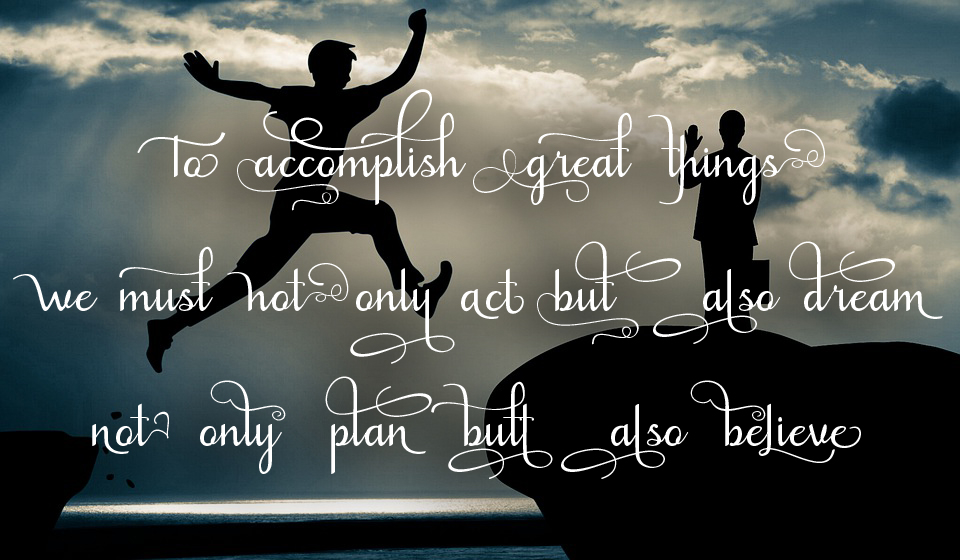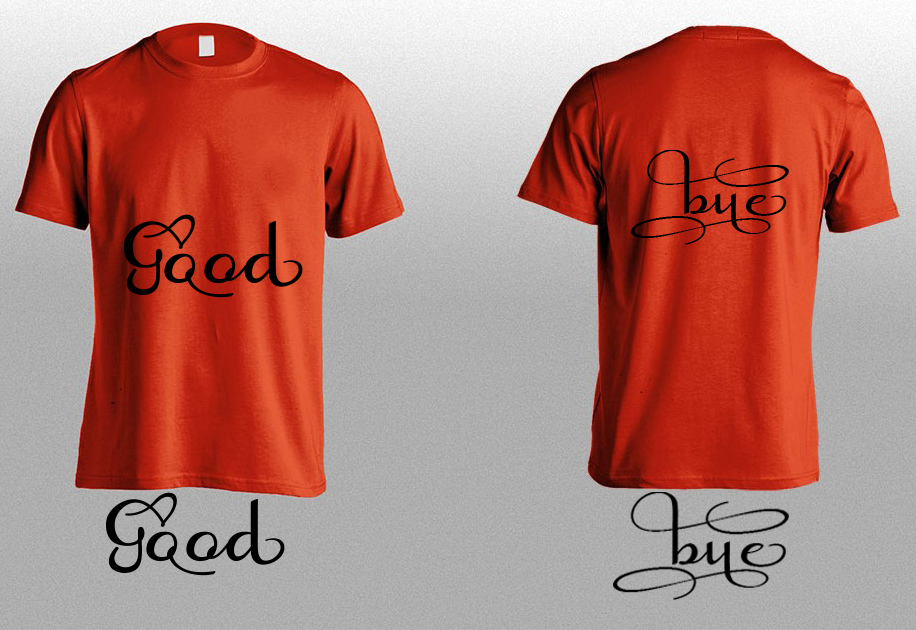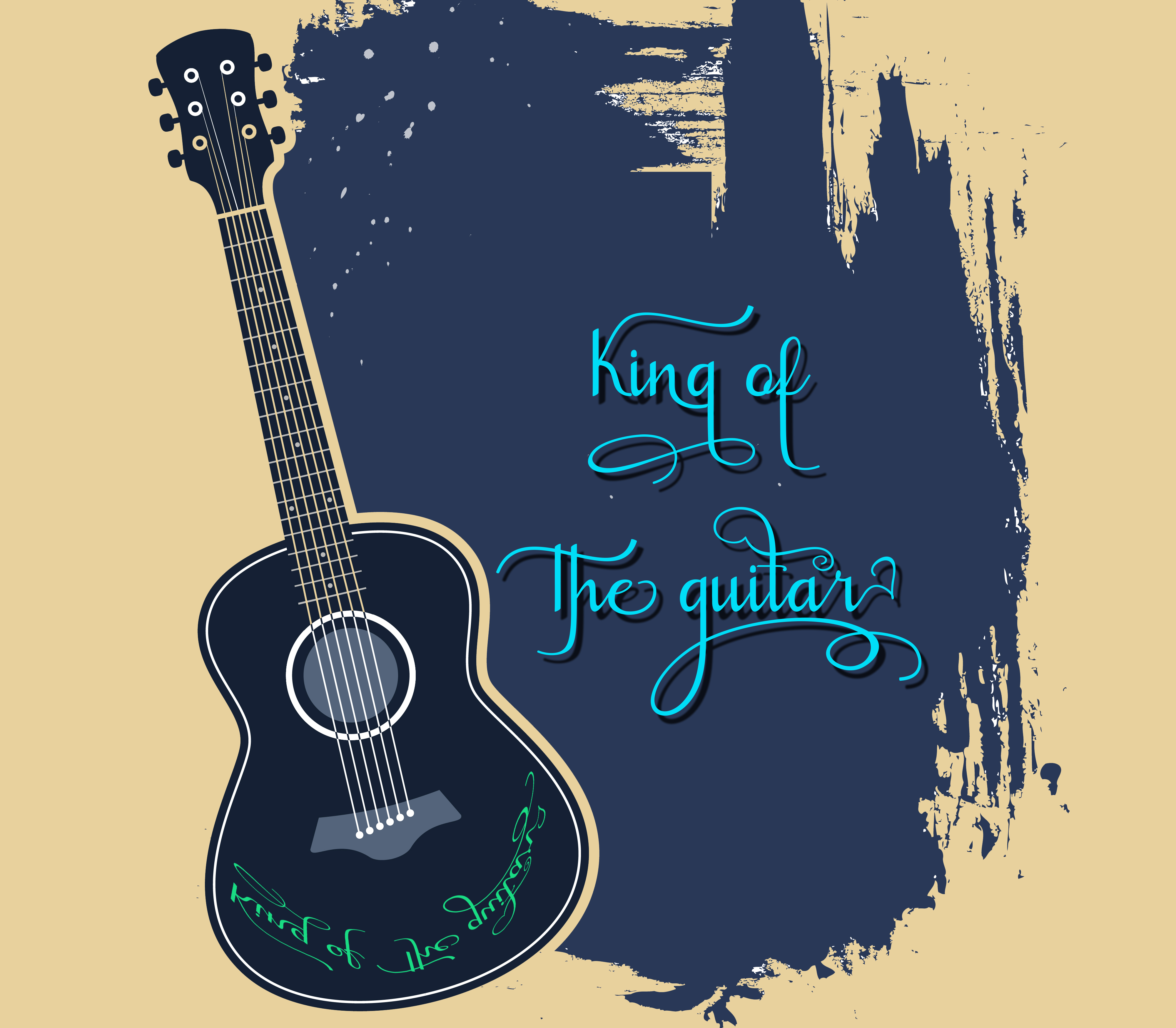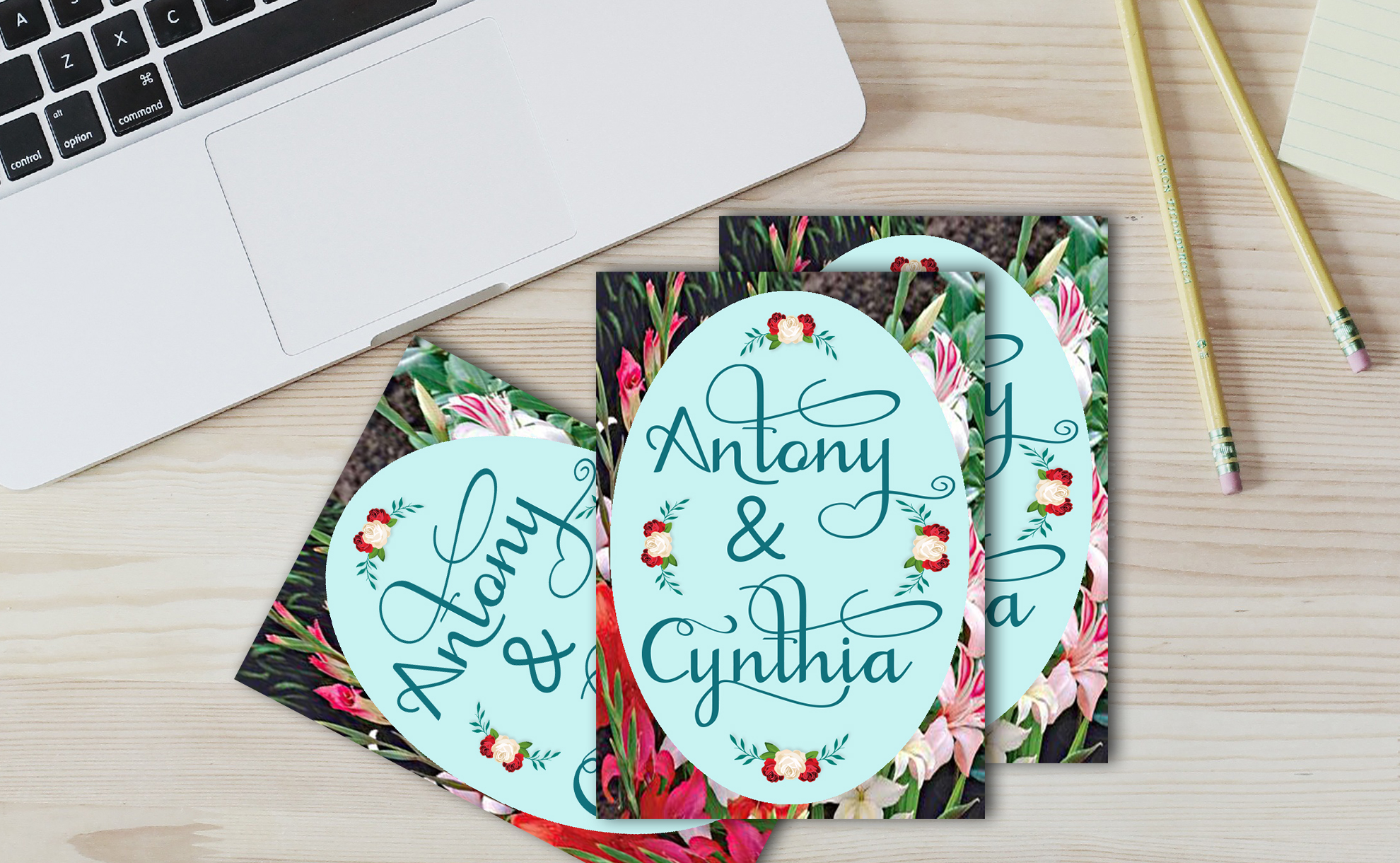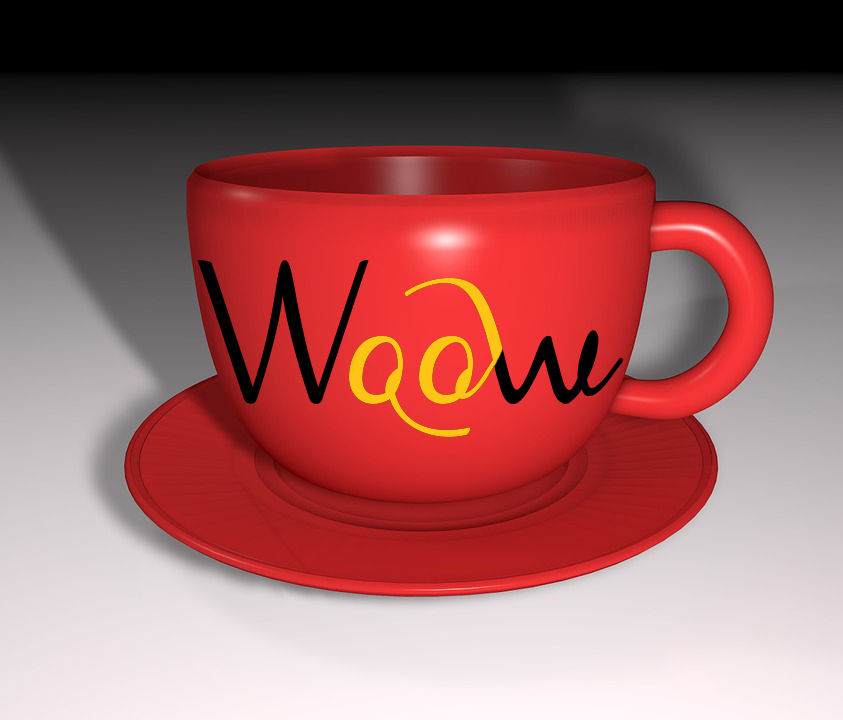
Introducing Goodbye Font: The Ultimate Decorative Typeface for Designers and Crafters
Are you tired of using the same old fonts in your designs? Look no further! Say hello to Goodbye Font, a stunning decorative typeface that is packed with a staggering 915 glyphs. This extensive character set allows you to create endless combinations, making it the perfect choice for designers and crafters who want to add a touch of personality to their work.
The Power of Goodbye Script
Goodbye Script is more than just a font – it’s an artistic tool that can elevate your designs to the next level. With its whimsical and decorative characters, this font is sure to capture the attention of your audience. The 915 glyphs include a wide range of letters, numbers, and symbols, as well as alternative characters and ligatures, giving you the flexibility to create unique and eye-catching text.
Endless Combinations at Your Fingertips
The extensive character set of Goodbye Script is what sets it apart from other fonts. With so many glyphs at your disposal, you can create endless combinations of letters, words, and phrases that are sure to impress. Whether you’re designing a logo, creating a social media graphic, or crafting a handmade card, Goodbye Script has got you covered.
Dance of the Decorative Characters
One of the standout features of Goodbye Script is the way its decorative characters dance on your screen. The font’s unique and playful design makes it perfect for adding a touch of whimsy to your designs. Imagine creating a beautiful wedding invitation, a festive holiday card, or a fun and quirky social media graphic with Goodbye Script. The decorative characters will add a level of sophistication and elegance to your design, making it truly unforgettable.
Goodbye Script is a versatile font that is perfect for both designers and crafters. Whether you’re a professional graphic designer or a hobbyist crafter, this font is sure to inspire your creativity. Use it to create stunning visual content, craft beautiful handmade cards, or add a personal touch to your DIY projects.
What You Can Create with Goodbye Script
The possibilities are endless with Goodbye Script. Here are just a few ideas to get you started:
- Beautiful wedding invitations and stationery
- Festive holiday cards and decorations
- Fun and quirky social media graphics
- Handmade cards and gift tags
- Unique logos and branding materials
- Stunning visual content for blogs and websites
Why Choose Goodbye Script?
So why choose Goodbye Script over other fonts? Here are just a few reasons:
- Extensive character set with 915 glyphs
- Unique and decorative characters
- Perfect for designers and crafters
- Endless combinations and possibilities
- Easy to use and versatile
Get Ready to Say Goodbye to Boring Fonts
If you’re tired of using the same old fonts in your designs, it’s time to say goodbye to boring typography. With Goodbye Script, you can add a touch of personality and whimsy to your work. Whether you’re a designer, crafter, or DIY enthusiast, this font is sure to inspire your creativity and take your designs to the next level.
In conclusion, Goodbye Font is a game-changer for designers and crafters. With its extensive character set, unique decorative characters, and endless combinations, this font is sure to become a favorite in your design arsenal. So why wait? Say goodbye to boring fonts and hello to Goodbye Script – the ultimate decorative typeface for your design needs.